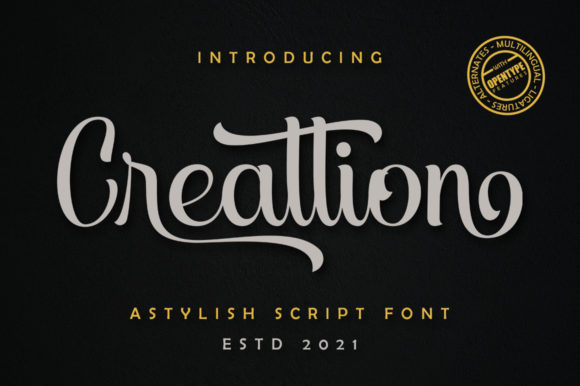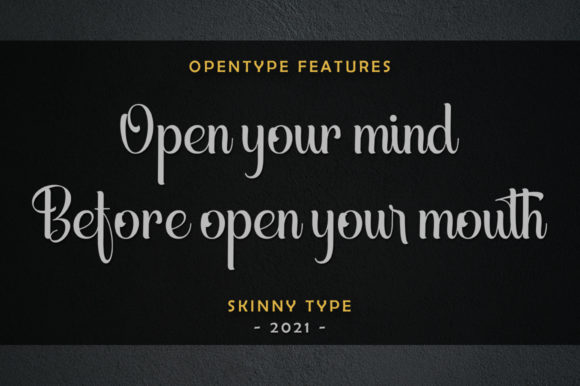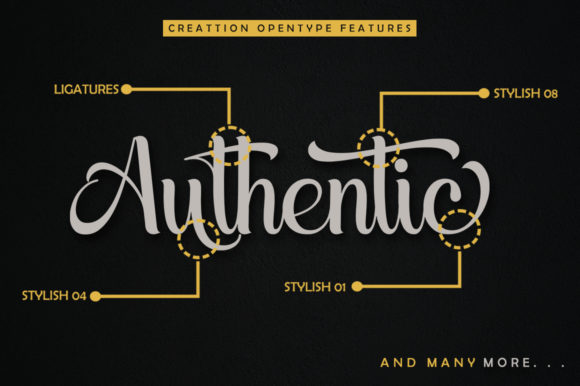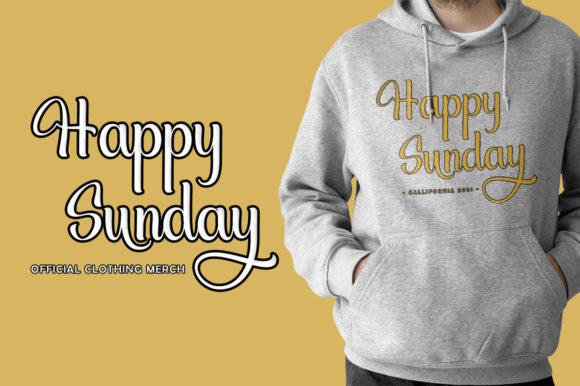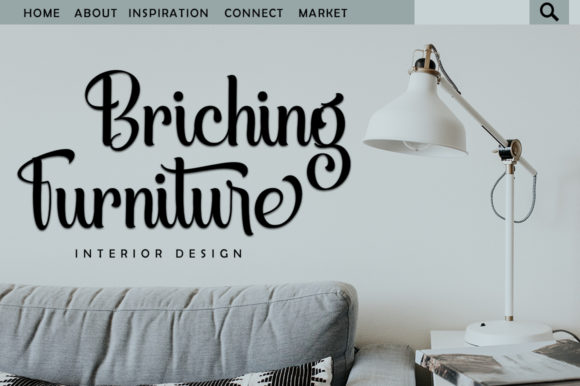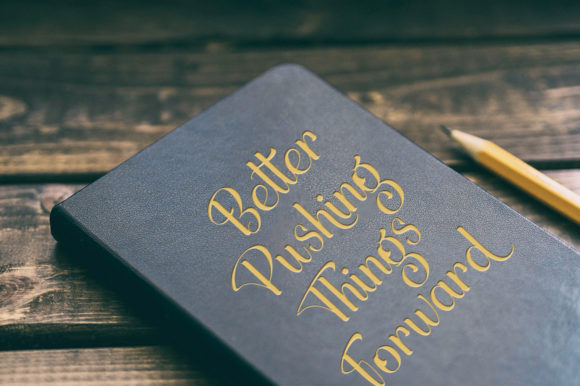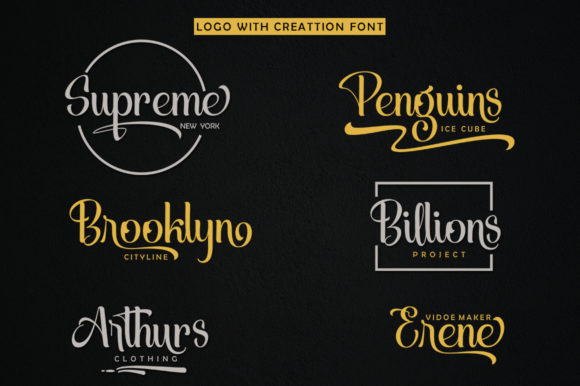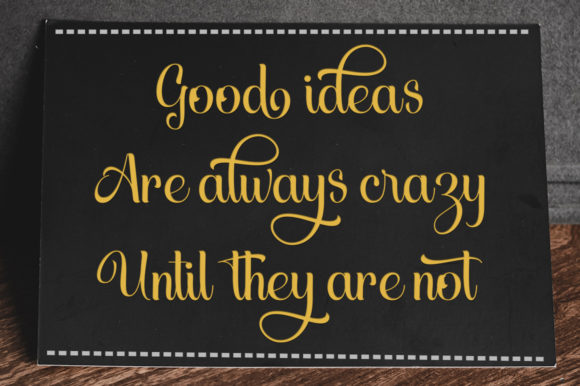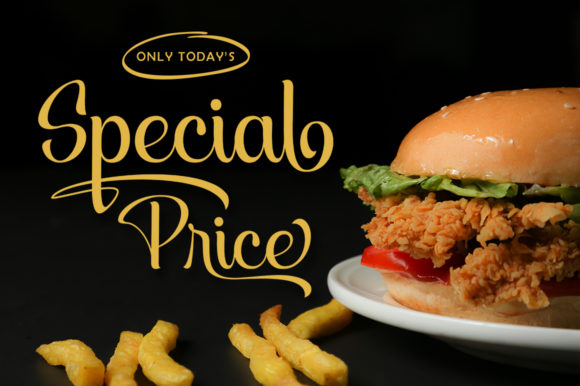
Creattion Font
About Creattion Font
Creattion is a beautiful and cursive handwritten font that exudes elegance and charm. Its flowing and curvaceous letters bring a sense of refinement and romance to any design project.
With Creattion, you have the opportunity to elevate your designs and make them truly stand out. Whether you’re working on invitations, branding materials, quotes, or any other creative endeavor, this font will add a touch of sophistication and uniqueness.
The cursive nature of Creattion gives it a graceful and fluid appearance, making it perfect for conveying a sense of elegance and beauty. The letters flow seamlessly together, creating a harmonious and visually pleasing composition. Each character is crafted with attention to detail, ensuring that every stroke is balanced and aesthetically pleasing.
One of the notable features of Creattion is its PUA encoding. This means that you can easily access all of the glyphs and swashes included in the font. PUA encoding allows for convenient customization and experimentation, as you can effortlessly incorporate the various glyphs and swashes into your designs. This gives you the freedom to add flourishes, alternate letterforms, or other decorative elements that will enhance the overall visual appeal of your projects.
When using Creattion, consider the context and purpose of your design. The font’s refined and romantic nature makes it particularly suitable for projects that require a touch of elegance and sophistication. It can be used for wedding invitations, love letters, branding materials for luxury or high-end products, and more.
To make the most of Creattion, pay attention to the overall layout and balance of your design. Experiment with different letter combinations, use the available swashes to add decorative touches, and consider the appropriate sizing and spacing of the font to ensure legibility and visual appeal.
In summary, Creattion is a delightful and cursive handwritten font that adds a refined and romantic touch to your design projects. Its elegant and flowing letters make it perfect for conveying sophistication and beauty. With its PUA encoding, you have easy access to a variety of glyphs and swashes, allowing for seamless customization and creative exploration. Incorporate Creattion into your designs, and watch them come alive with its radiant charm.